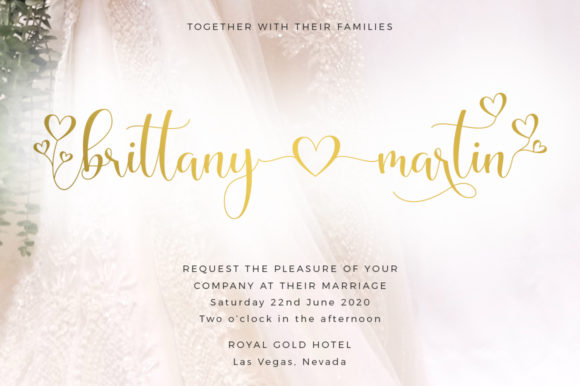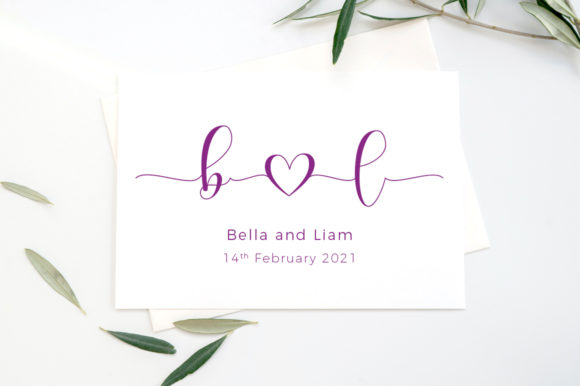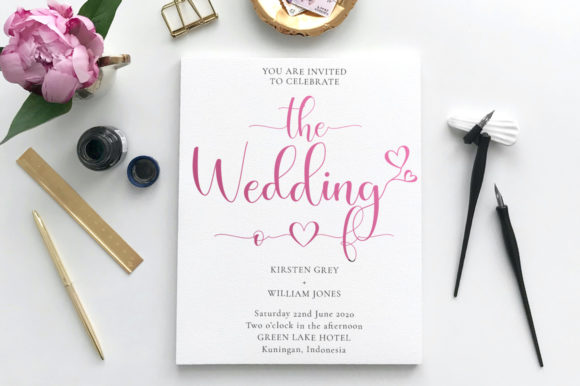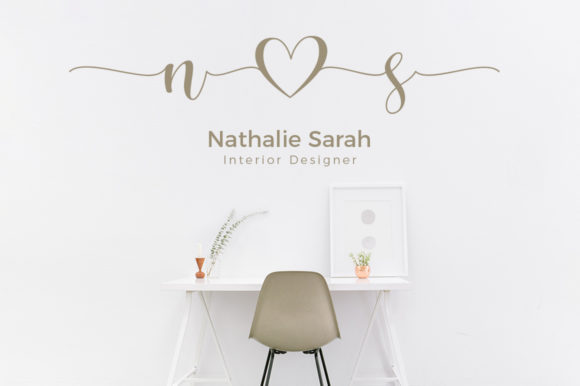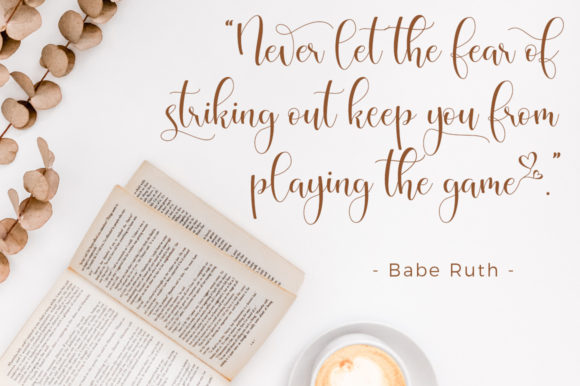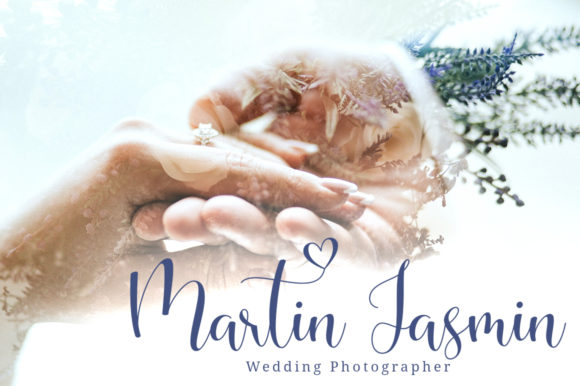
Introduction to Oliver Sophie Font
Have you ever found yourself scribbling down a quote or a message on a piece of paper, only to wish you had the perfect font to match your creative vision? For designers and artists, finding the right font can be a game-changer, and that’s exactly what the Oliver Sophie Font aims to provide.
This lovely calligraphy font boasts smooth handwritten flows, making it perfect for a wide range of creative projects, from logos and wedding stationery to photography and product packaging. With its high-quality design, the Oliver Sophie Font is a valuable resource for designers looking to add a touch of elegance and sophistication to their work.
What sets the Oliver Sophie Font apart is its ease of use, thanks to its PUA encoded glyphs and swashes. This means that designers can access all of the font’s features with ease, making it a breeze to create beautiful and intricate designs. Whether you’re working on a free download project or a commercial design, the Oliver Sophie Font is an excellent choice for any creative endeavor.
Key Features of Oliver Sophie Font
- High-quality design resource ideal for creative projects, with a unique and elegant style.
- Designed with precision, ensuring crisp and clear readability at resolutions up to 300 DPI.
- Perfect for use in logos, typography, and other design elements where a sophisticated and refined look is desired.
Honest Review: Oliver Sophie Font
As a designer, I’m always on the lookout for high-quality design resources to elevate my creative projects. The Oliver Sophie Font has caught my attention with its elegant and sophisticated design. I was excited to dive in and see what it has to offer.
Here are some things that work well with the Oliver Sophie Font:
- ✨ Elegant script design: The font features a beautiful, flowing script that adds a touch of sophistication to any design.
- ✨ High-quality graphics: The font includes high-quality graphics, such as ligatures and swashes, that can add depth and visual interest to your designs.
- ✨ Transparent background: The font’s transparent background makes it easy to customize and integrate into any design.
- ⚠️ Limited language support: The font only supports a limited range of languages, which may be a drawback for designers working on international projects.
- ⚠️ Not ideal for body text: While the font is perfect for headlines and titles, it may not be the best choice for body text due to its ornate design.
Overall, I’m impressed with the Oliver Sophie Font’s elegant design and high-quality graphics. While it may have some limitations, it’s a great resource for designers working on creative projects that require a touch of sophistication. With a free download available, it’s definitely worth checking out.
Oliver Sophie Font is ideal for creative projects that require a transparent background and high-quality typography. Use it for social media graphics, blog posts, or any design that requires a unique and elegant touch. To get the most out of the font, experiment with different font sizes and styles to create visual interest.